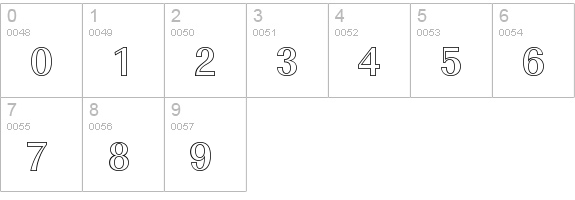
ImperialOu-Medium-Regular is a balanced, medium-weight variant in the ImperialOu typeface family \xE2\x80\x94 well suited to sub-headlines, navigation, and balanced editorial work.
ImperialOu-Medium-Regular font is a versatile and elegant typeface that exudes a sense of authority and sophistication. With its classic and timeless design, this font is perfect for a wide range of projects, from branding to editorial design. Its medium weight strikes the perfect balance between being bold and easy to read, making it ideal for both headers and body text. What sets ImperialOu-Medium-Regular font apart is that it is not only visually appealing but also free to download. You can access this high-quality font at FontsMarket.com without any cost, making it a valuable addition to your font collection. Whether you are a designer, writer, or student, ImperialOu-Medium-Regular font is a great choice for adding a touch of refinement to your work. Download it today and elevate your projects with this exquisite typeface.